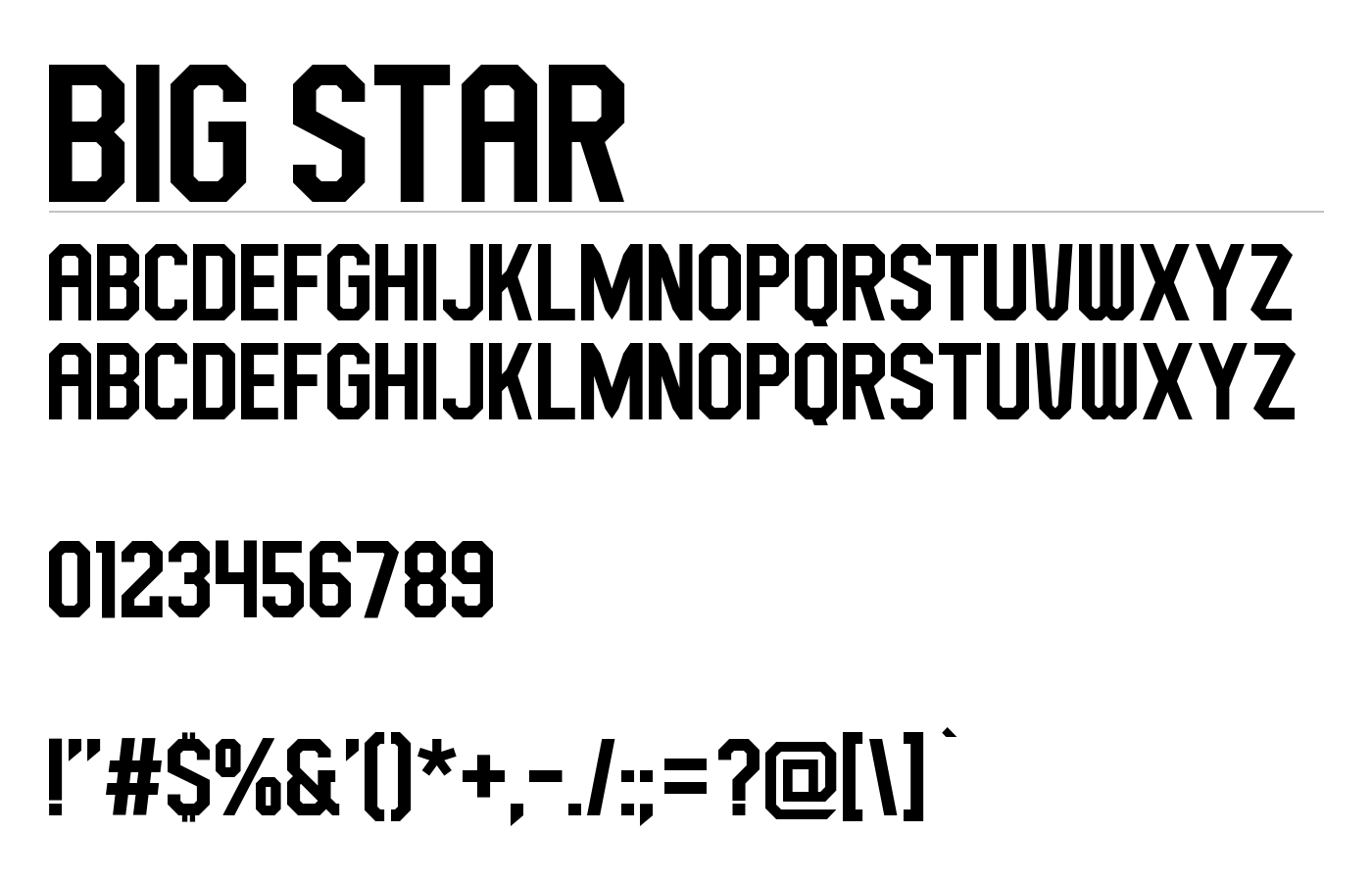
Big Star is a bold, condensed sans serif font with a strong, geometric structure and sharp edges that give it a sturdy, industrial feel. Its all-caps design with uniform stroke weight and clean lines makes it perfect for impactful headlines, logos, and designs that need a modern, confident presence. This font works well in branding and display uses where clarity and boldness are key.